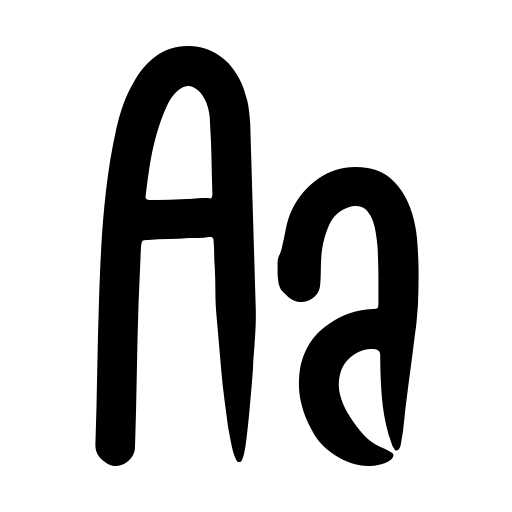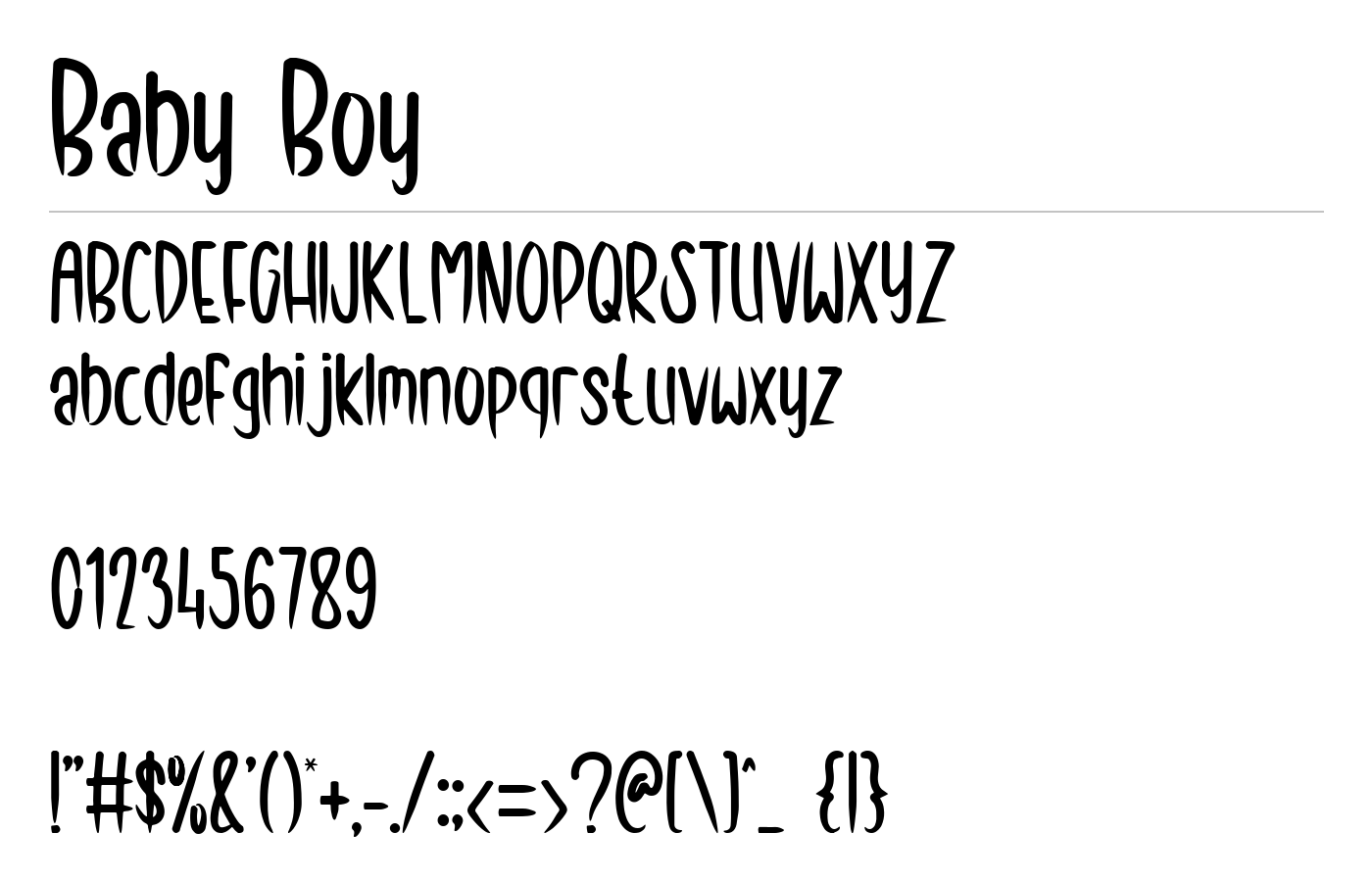
Baby Boy Font is a playful, hand-drawn sans serif typeface with tall, narrow letterforms and a casual, friendly vibe. Its slim strokes and slightly irregular shapes give it a whimsical, youthful personality, making it ideal for children's products, creative projects, and informal branding where a fun, approachable style is desired. This font works best in headlines, invitations, and logos that want to convey warmth and charm with a modern, quirky touch.
Baby Boy Font
About Baby Boy Font